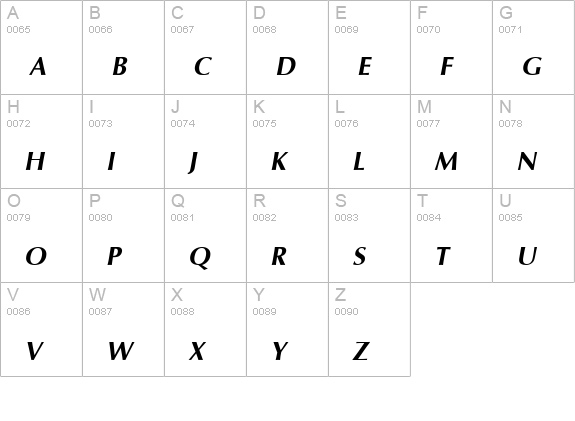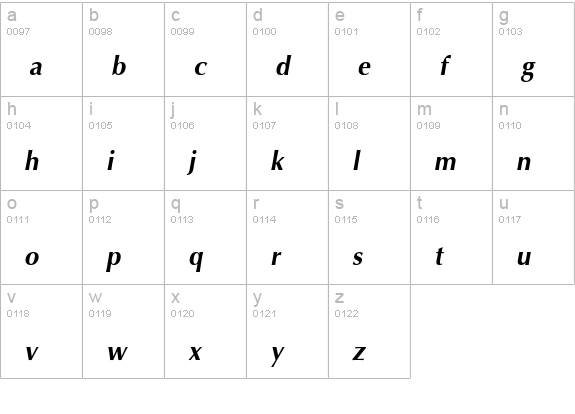
IrisUPC Bold Italic Font Details
IrisUPC Bold Italic is a strong, high-contrast, italic variant in the IrisUPC typeface family \xE2\x80\x94 well suited to headlines, attention-grabbing titles, and strong calls-to-action.
IrisUPC Bold Italic is a visually captivating font that combines boldness with a touch of elegance. Its unique and stylish design is perfect for adding a touch of sophistication to any project. With its slanted and bolded letterforms, this font exudes confidence and professionalism. The curves and strokes of IrisUPC Bold Italic are meticulously crafted, creating a harmonious balance between thickness and slant. This font is ideal for headlines, titles, and logos, as it effortlessly grabs attention and makes a bold statement. Whether used in print or digital media, IrisUPC Bold Italic adds a touch of excitement and modernity to any design. One of the best features of IrisUPC Bold Italic is that it is freely available to download at FontsMarket.com. This means that you have the opportunity to enhance your creative projects without spending a penny. The font is easily accessible and can be downloaded in just a few simple steps, allowing you to quickly incorporate it into your designs. The versatility of IrisUPC Bold Italic makes it suitable for a wide range of applications. From branding and advertising to web design and packaging, this font is sure to make a lasting impression. Its bold and italicized form demands attention and conveys a sense of authority and confidence. Whether you are a graphic designer, a marketing professional, or simply someone looking to add a touch of elegance to their personal projects, IrisUPC Bold Italic is the ideal font choice. Its free availability at FontsMarket.com makes it even more desirable, as you can effortlessly elevate your designs without breaking the bank. So, why wait? Download IrisUPC Bold Italic now and unleash your creativity with this captivating font.